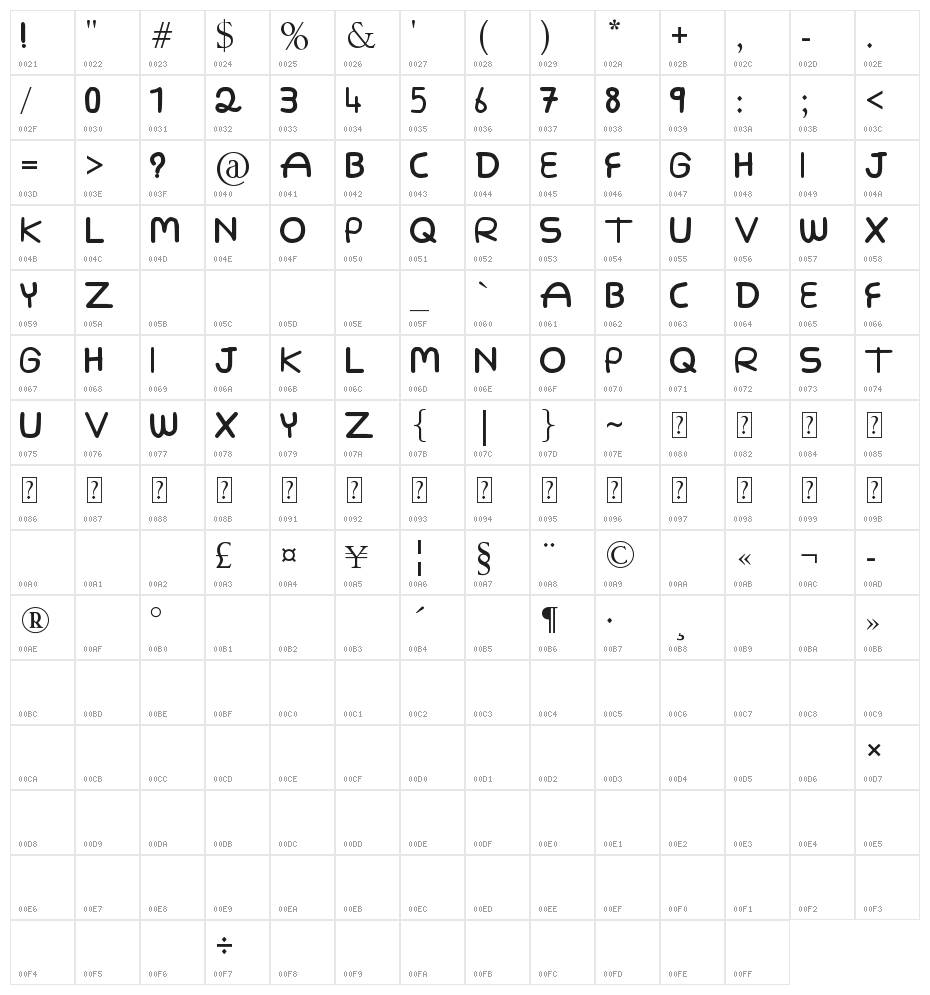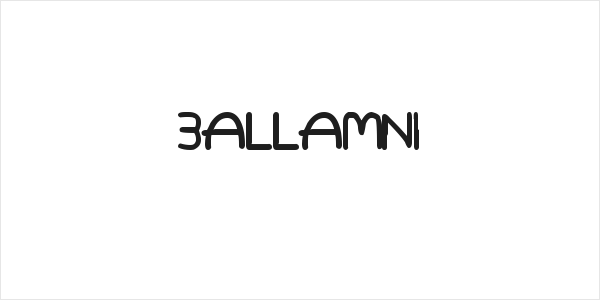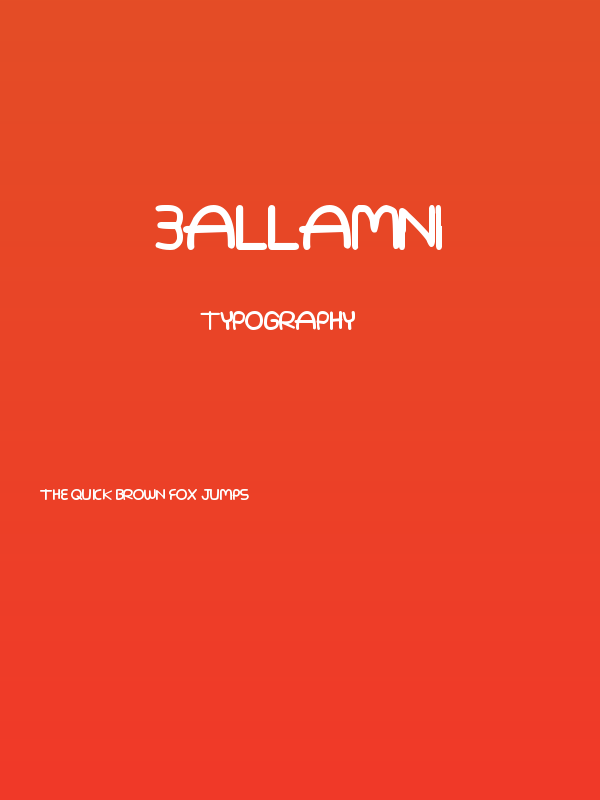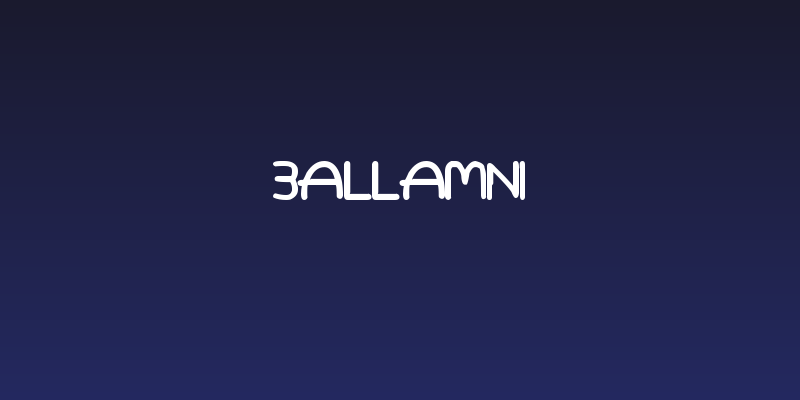
3allamni Font
3allamni Description
This font features a playful and rounded style with smooth curves and a consistent stroke width. The characters are bold and have a friendly appearance, making them suitable for informal and creative projects. The uppercase and lowercase letters maintain a uniform height, contributing to a cohesive look. The numerals and special characters are designed to match the overall style, ensuring visual harmony across all text elements. The font's rounded edges and lack of sharp angles give it a soft and approachable feel, ideal for designs that aim to convey warmth and friendliness.
Overall StylePlayful
Proposed ProjectsIdeal for children's books, playful branding, casual invitations, and creative posters.